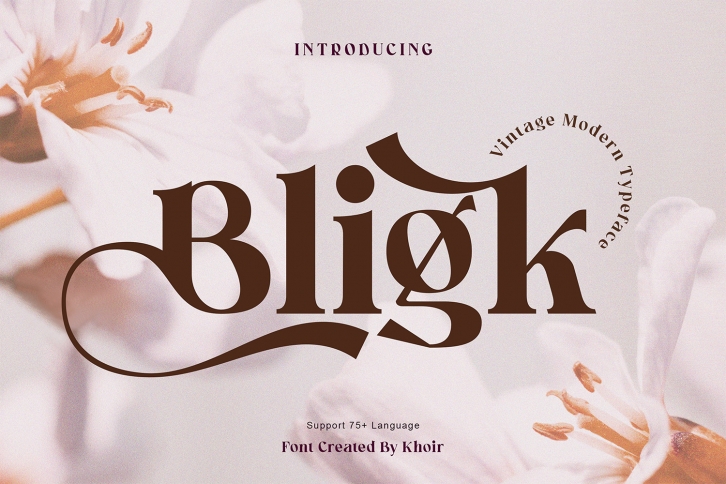
Bligk is a modern serif font wrapped in a vintage flair to give your projects a unique and elegant impression.  Use it to create amazing logos, branding designs, invitations, novels, posters, books, magazines, labels, web designs, greeting wedding cards, and so much more!